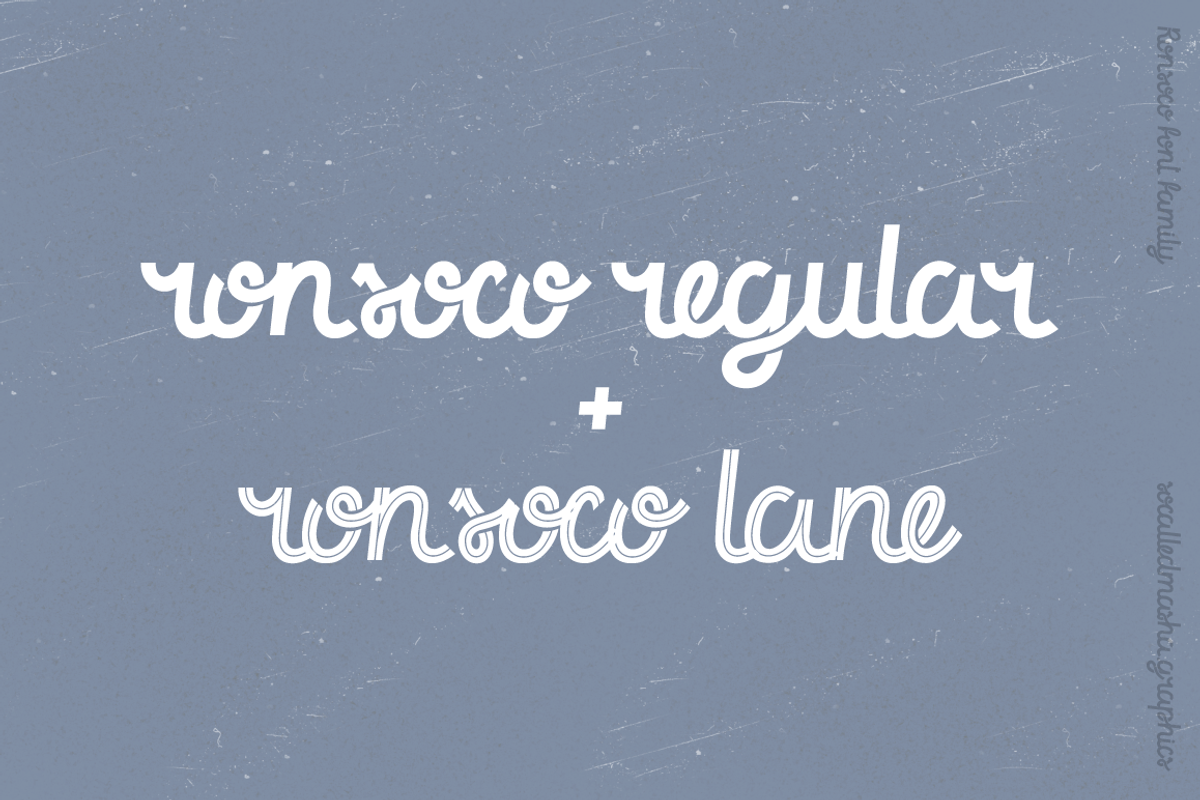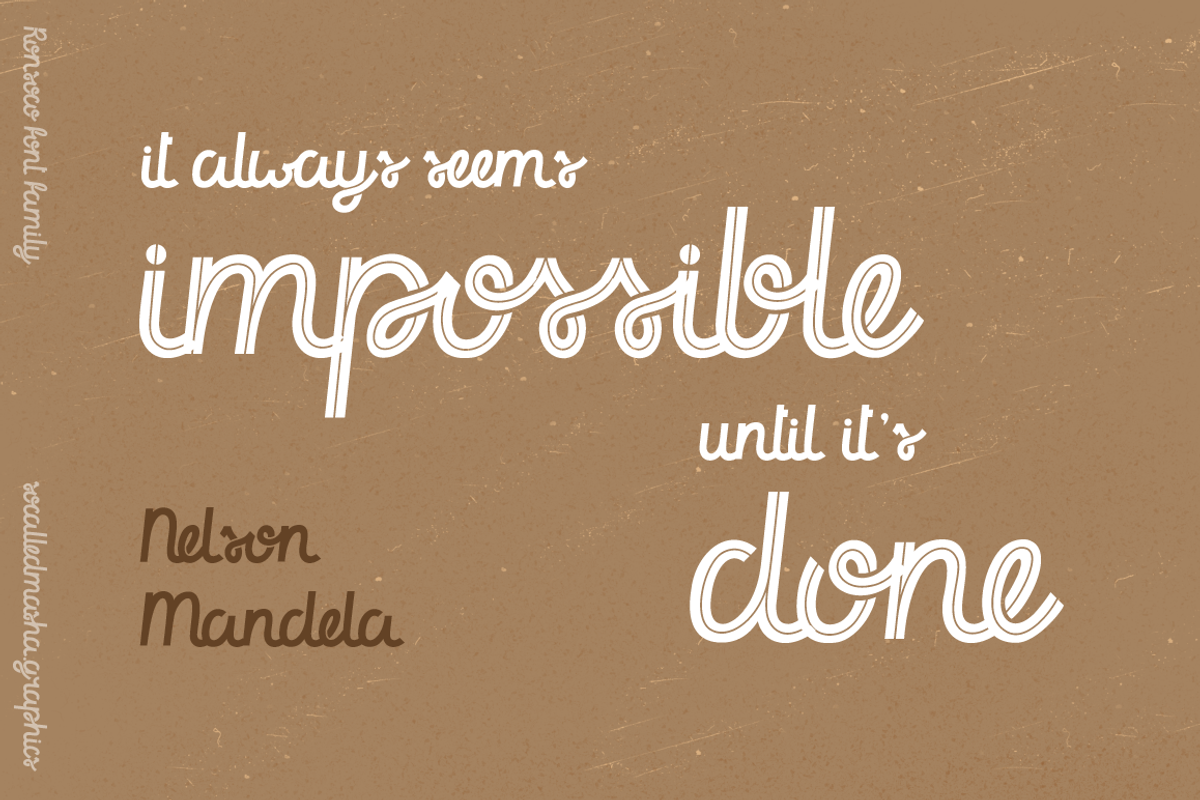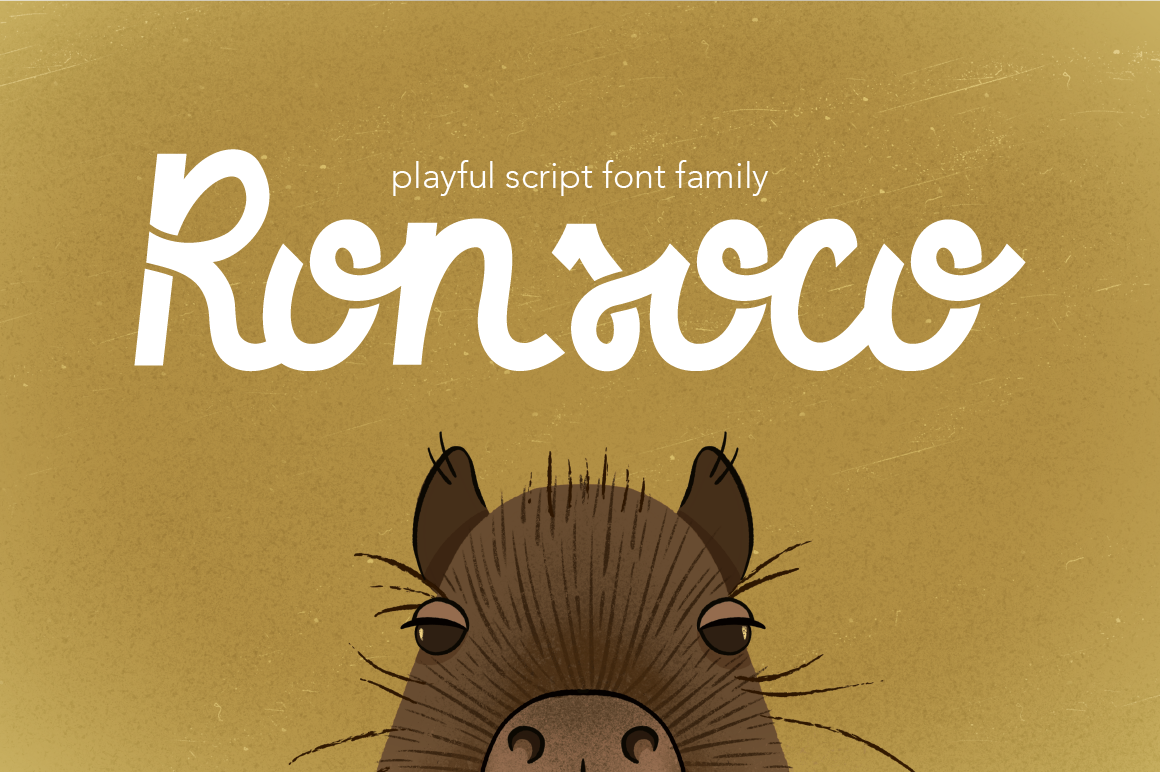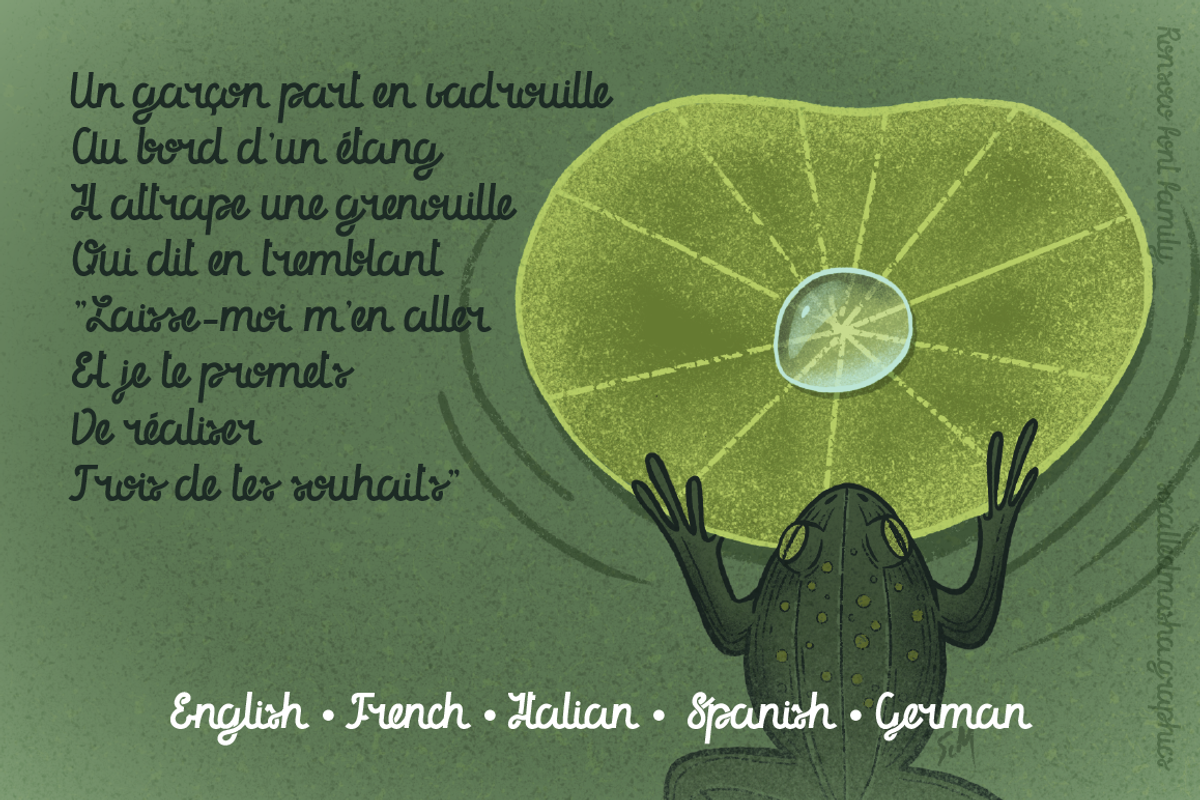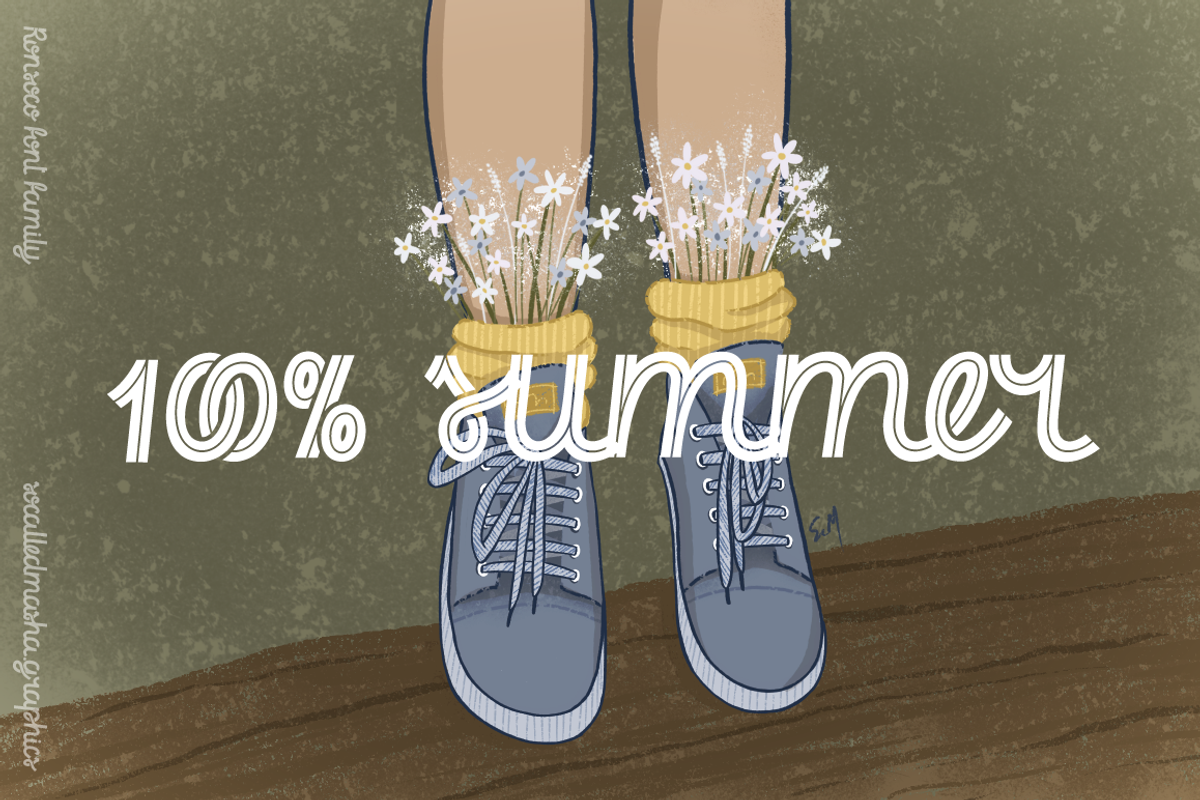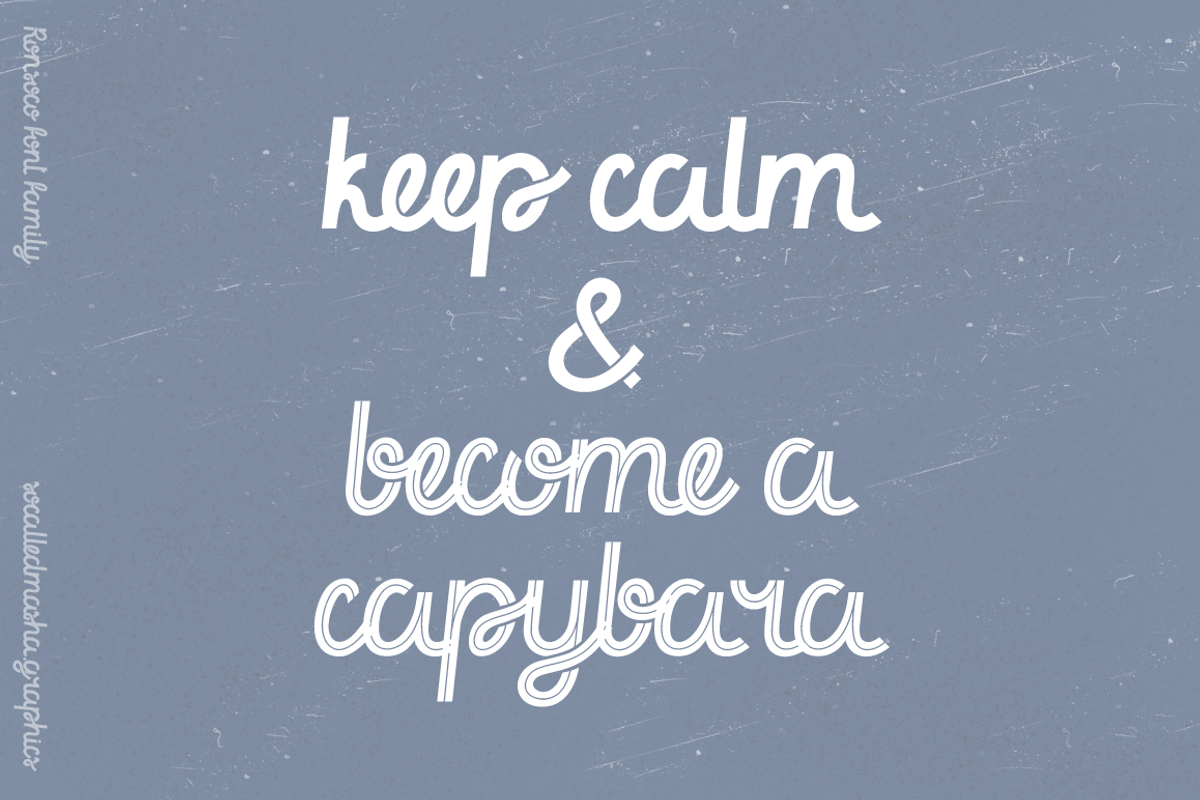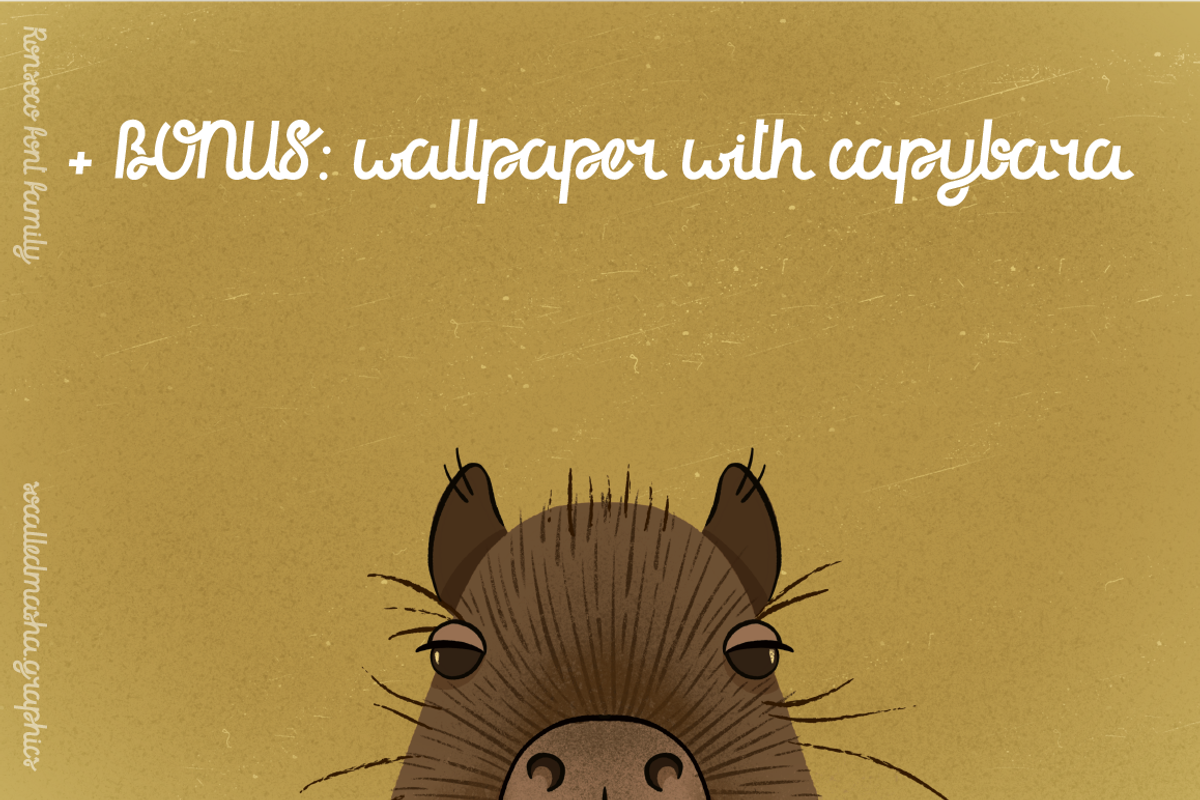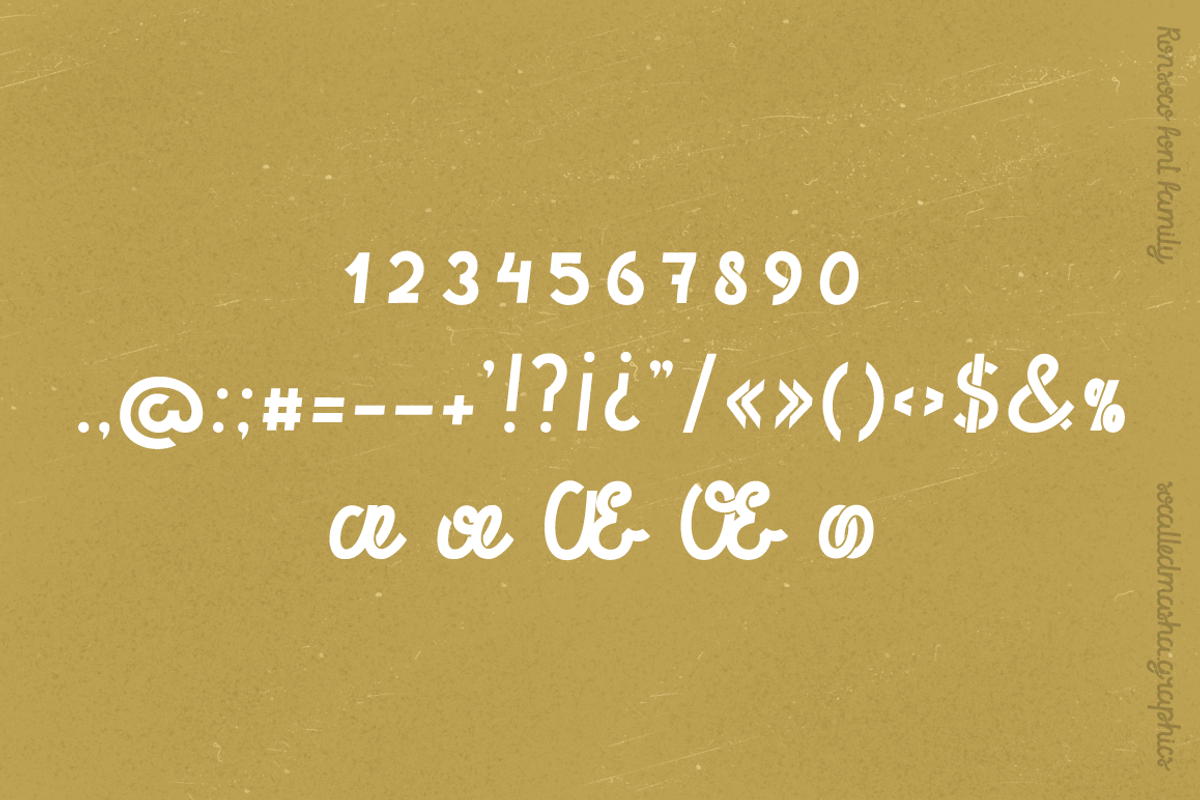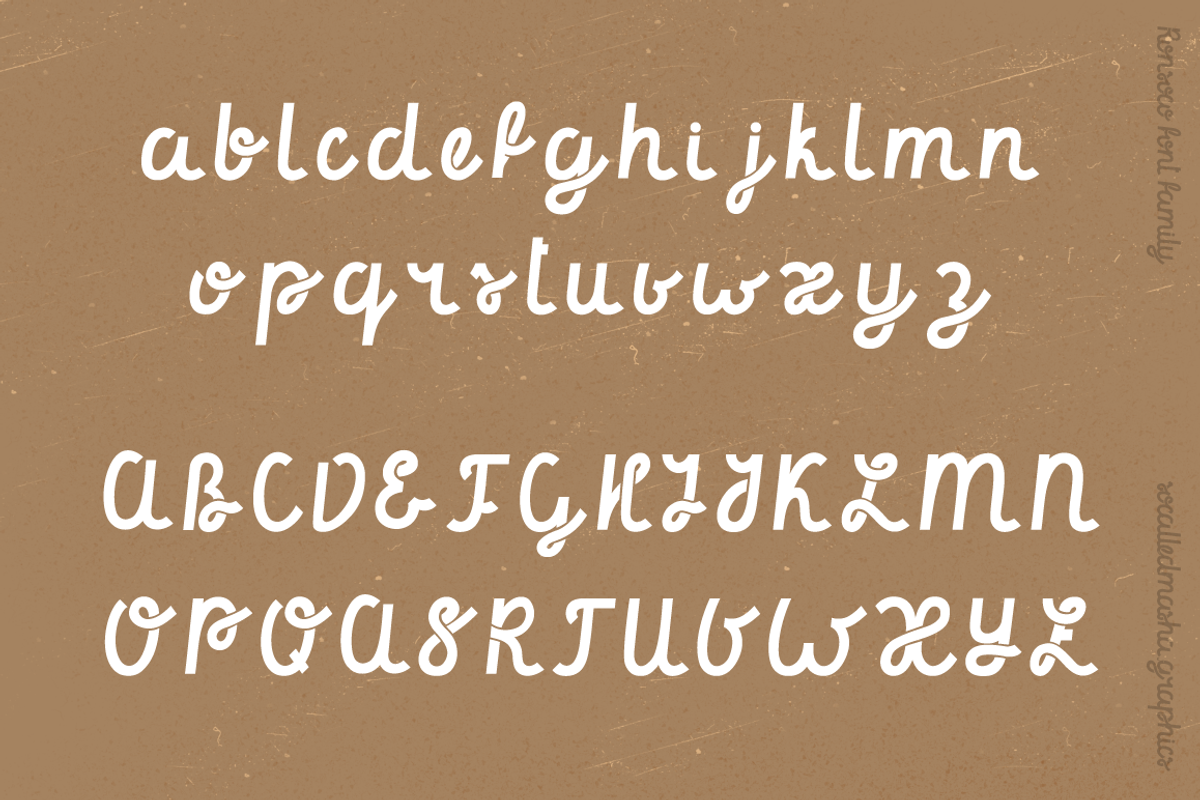
Ronsoco - playful font family
Looking for a playful font for your illustrations text, quotes lettering, prints or magazine header? You just found Ronsoco! This font was made with a lot of love and it is based on my handwritten lettering. It's a very versatile font that works great in large and small sizes.